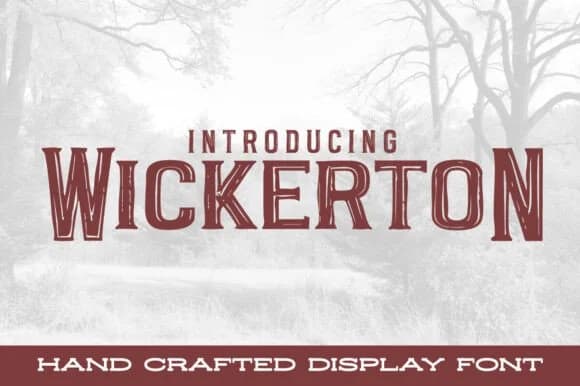
Wickerton by stompstock is a slab-serif with the rough authenticity of vintage letterpress and hand-painted signage. The typeface sits somewhere between industrial toughness and refined detail, with distressed edges and irregular character shapes that feel intentional rather than accidental. This tension between polish and wear gives it real presence without tipping into caricature or novelty.
Use it for heritage brand identities, vintage whiskey labels, or craft brewery packaging where you need to suggest history without looking contrived. It works equally well on rustic restaurant menus, antique shop signage, and old-cinema-style posters. The weathered surface catches light differently at different sizes, which matters if you're setting it large for maximum impact. The character weight feels right for logos too, holding its personality even when scaled small. The type family includes multiple weights and a full character set that handles extended Latin, so you can adapt the voice across headlines and body copy without losing its character.
Wickerton Font is a slab serif font that shines as a display or heading face. Pair it with a clean sans-serif or serif font for body text β the contrast creates a clear hierarchy while the two styles stay balanced and easy to read.
Wickerton Font